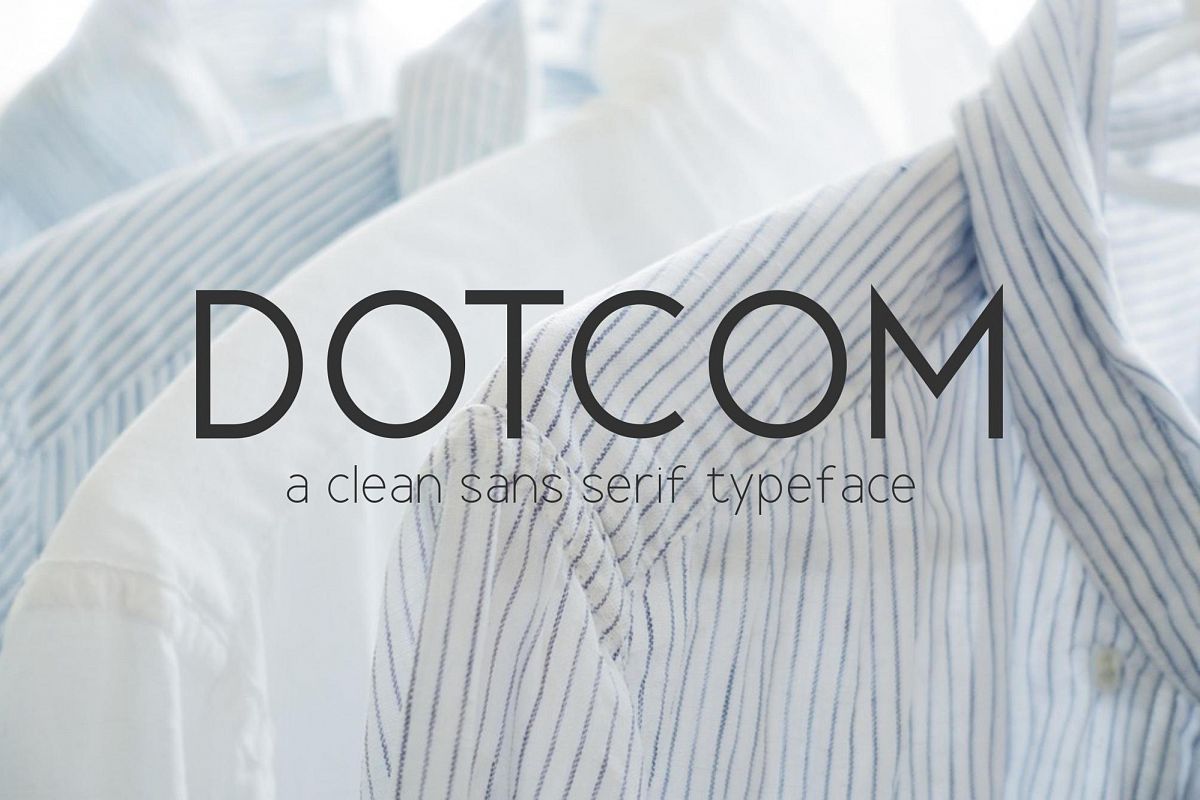
Dotcom Family Introducing Dotcom Family - A clean and minimalist and awesome character! With three different weights, it's perfect for magazine layouts, invitations, headers, or even large-scale artwork.